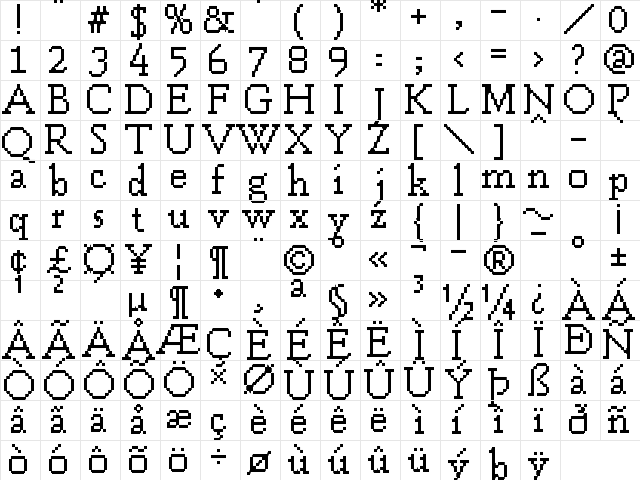
UF PT Bellefield Regular
Foundry: Ultrafonts
Designer: Hugo Perez of PixieType
Design Context for UF PT Bellefield
UF PT Bellefield is a composed and adaptable typeface that performs quietly and consistently across a wide range of design contexts.